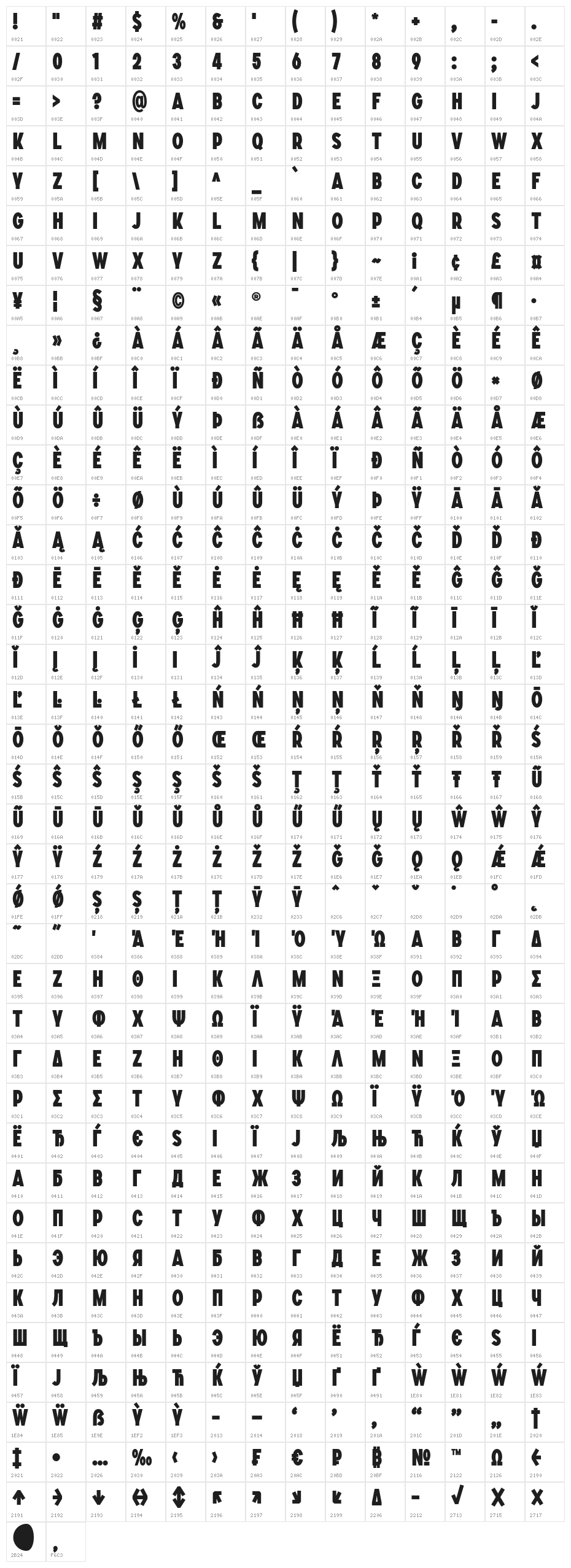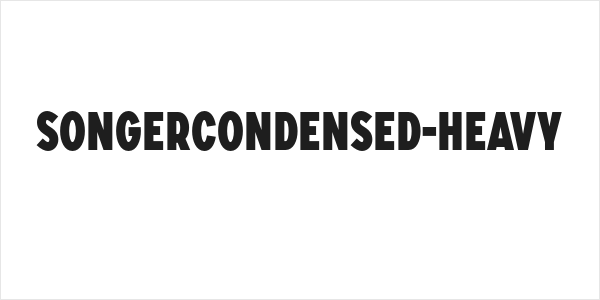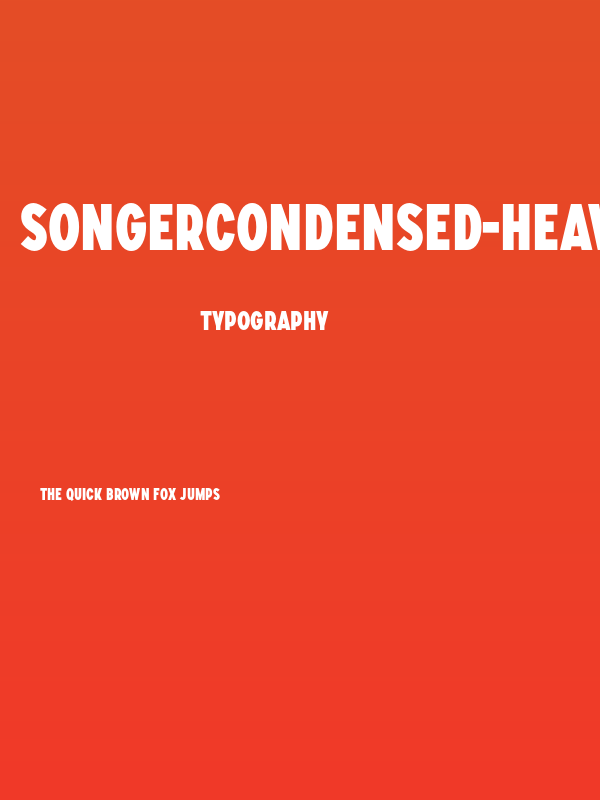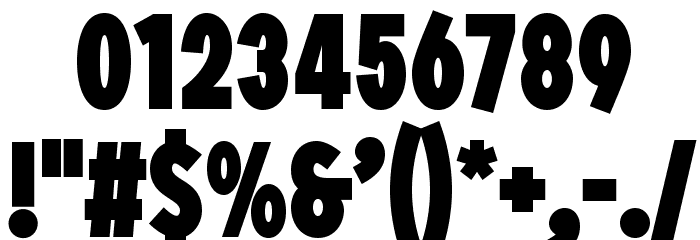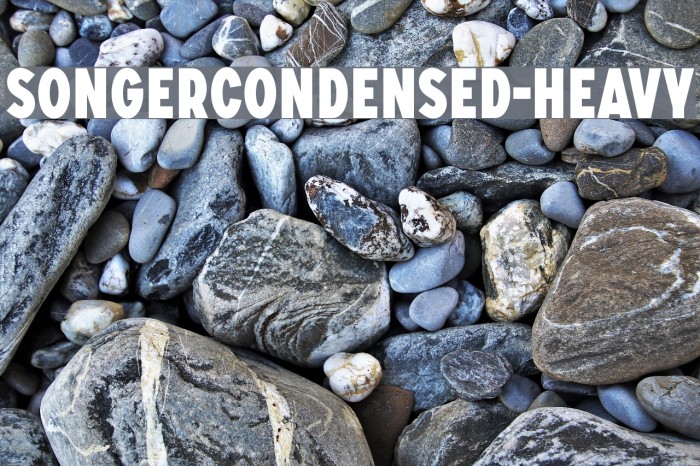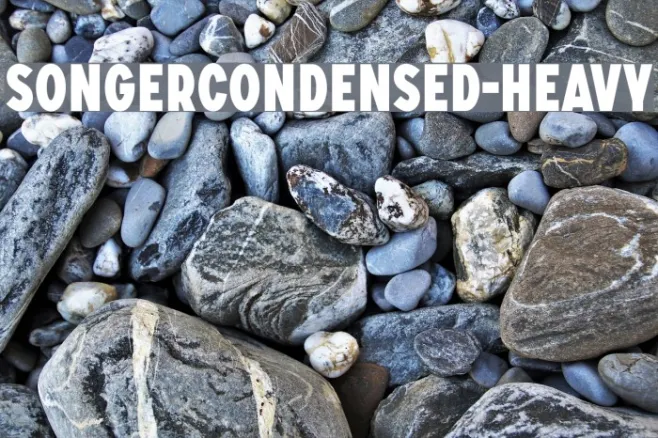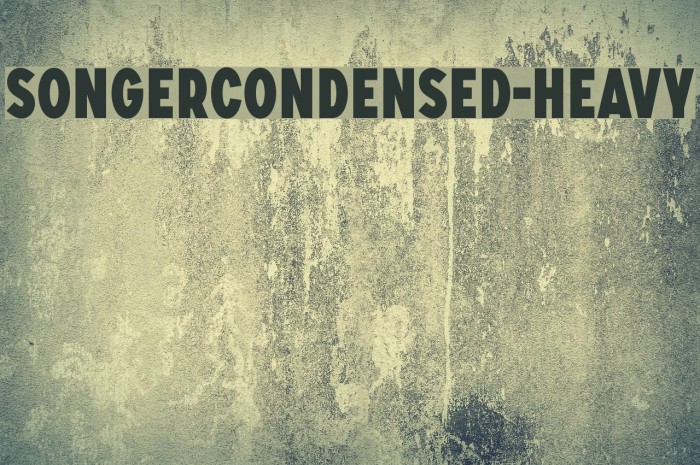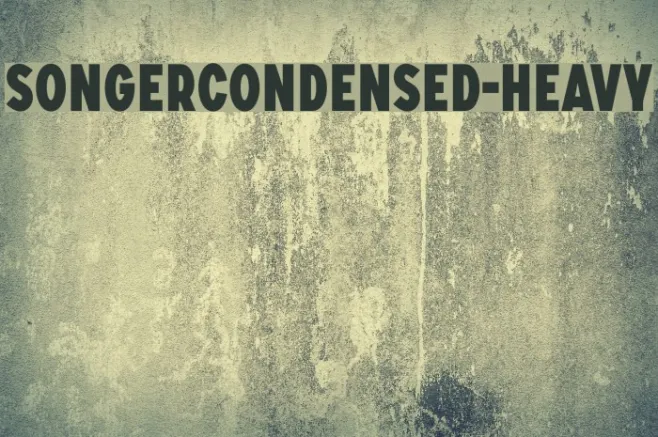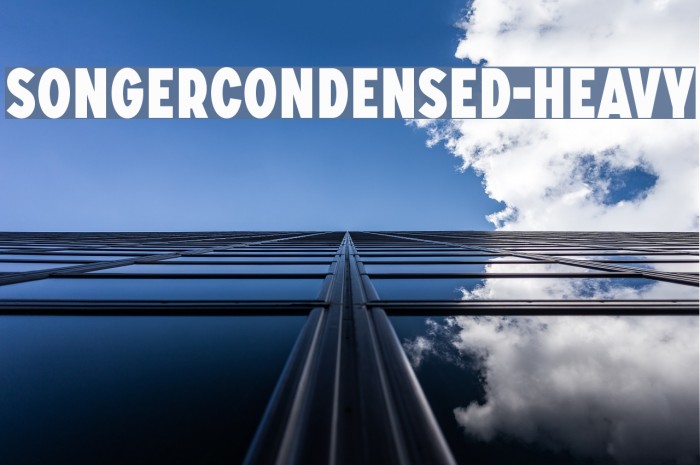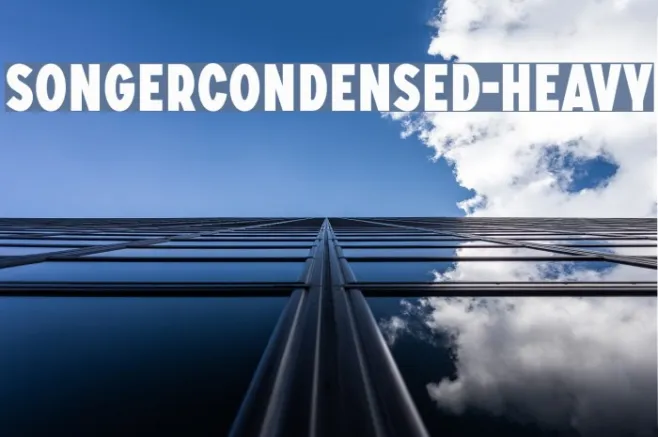
SONGERCondensed-Heavy Font
SONGERCondensed-Heavy Description
This font exhibits a bold and impactful style with heavy strokes and a condensed structure. The uppercase letters are uniform and robust, creating a strong visual presence. The lowercase letters maintain the same weight and condensed form, ensuring consistency across text. Numbers are equally bold, making them stand out effectively. Special characters are designed to match the overall heavy and condensed aesthetic, providing a cohesive look. This font is ideal for making statements with its powerful and assertive appearance.